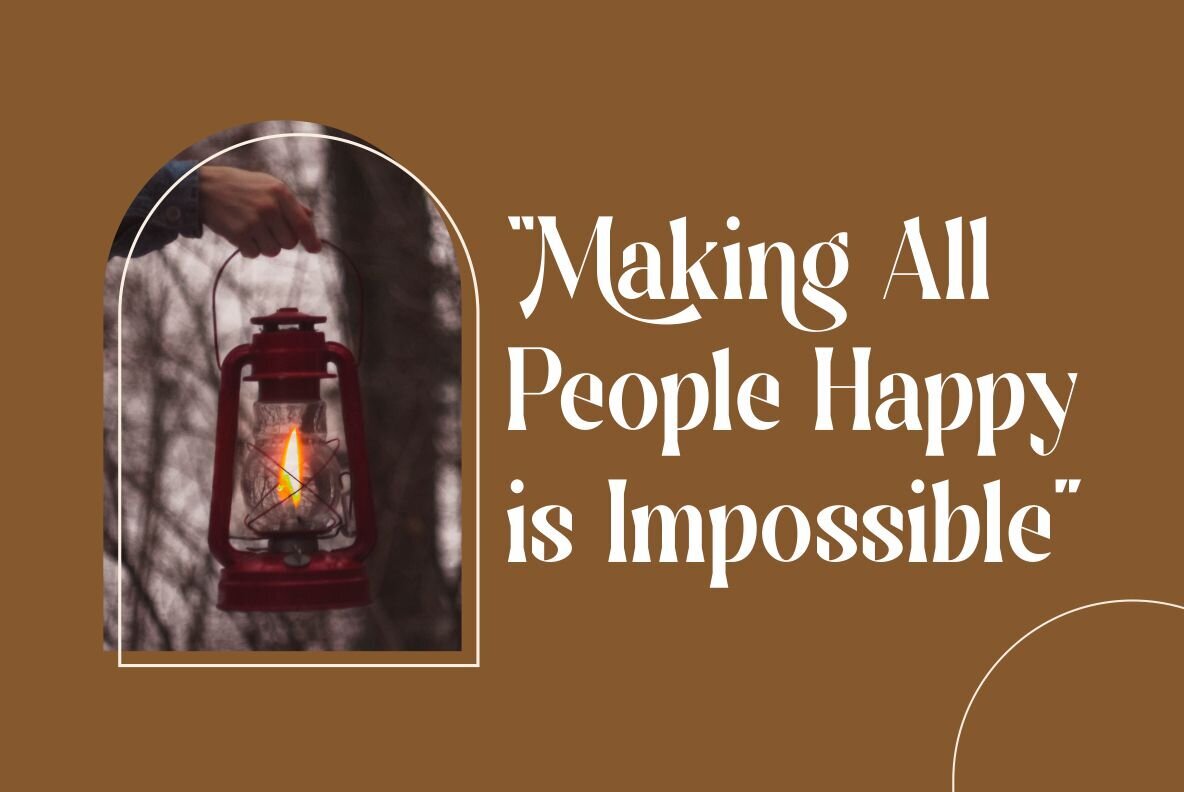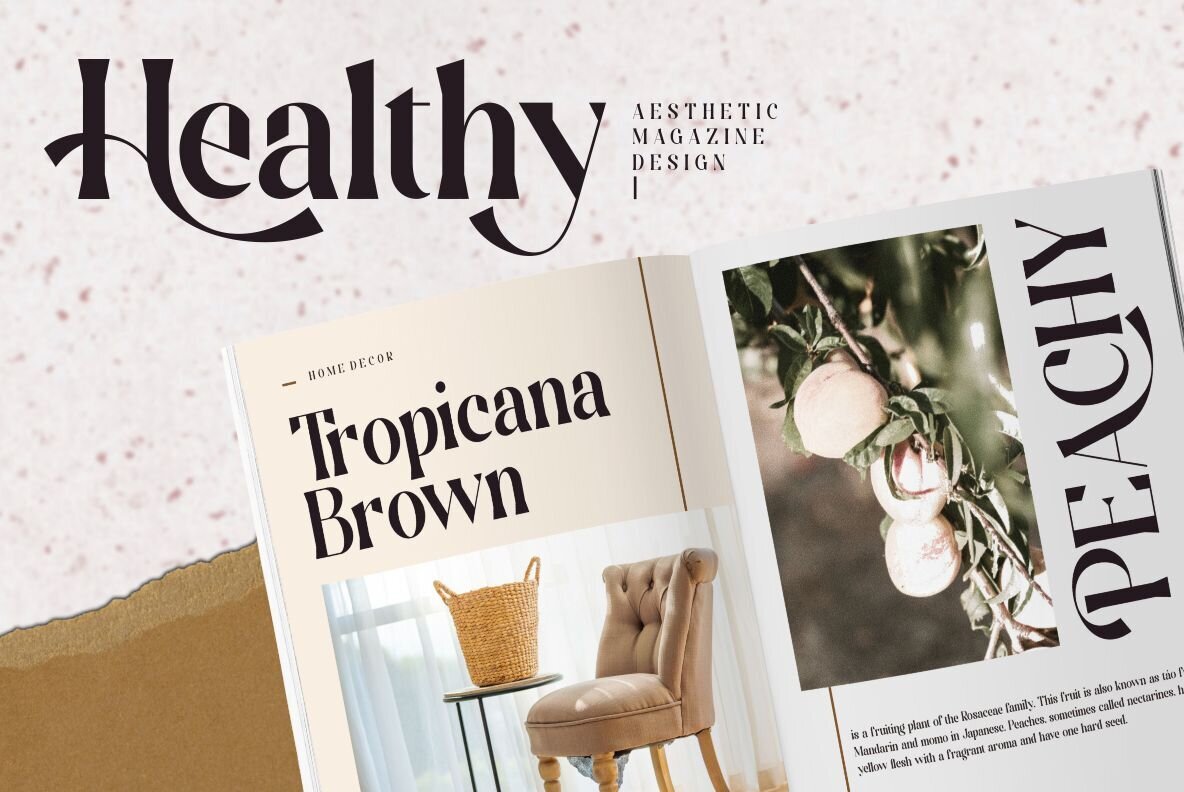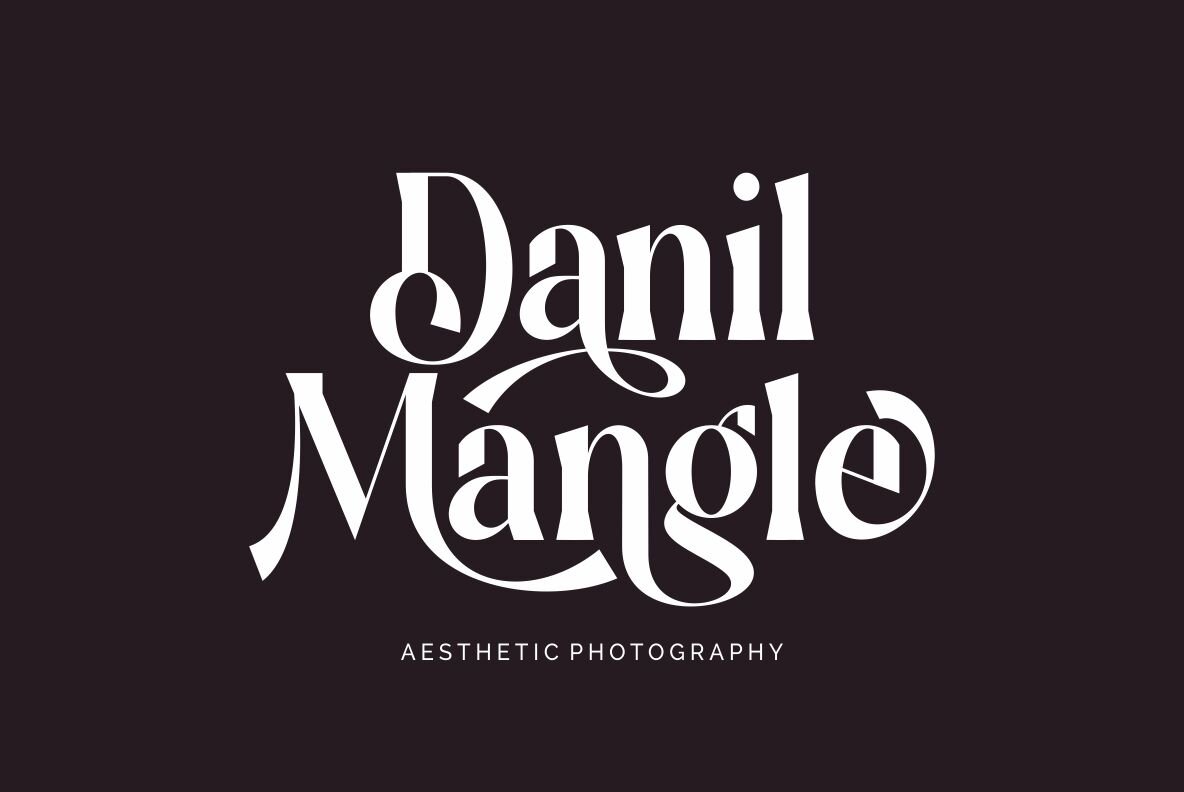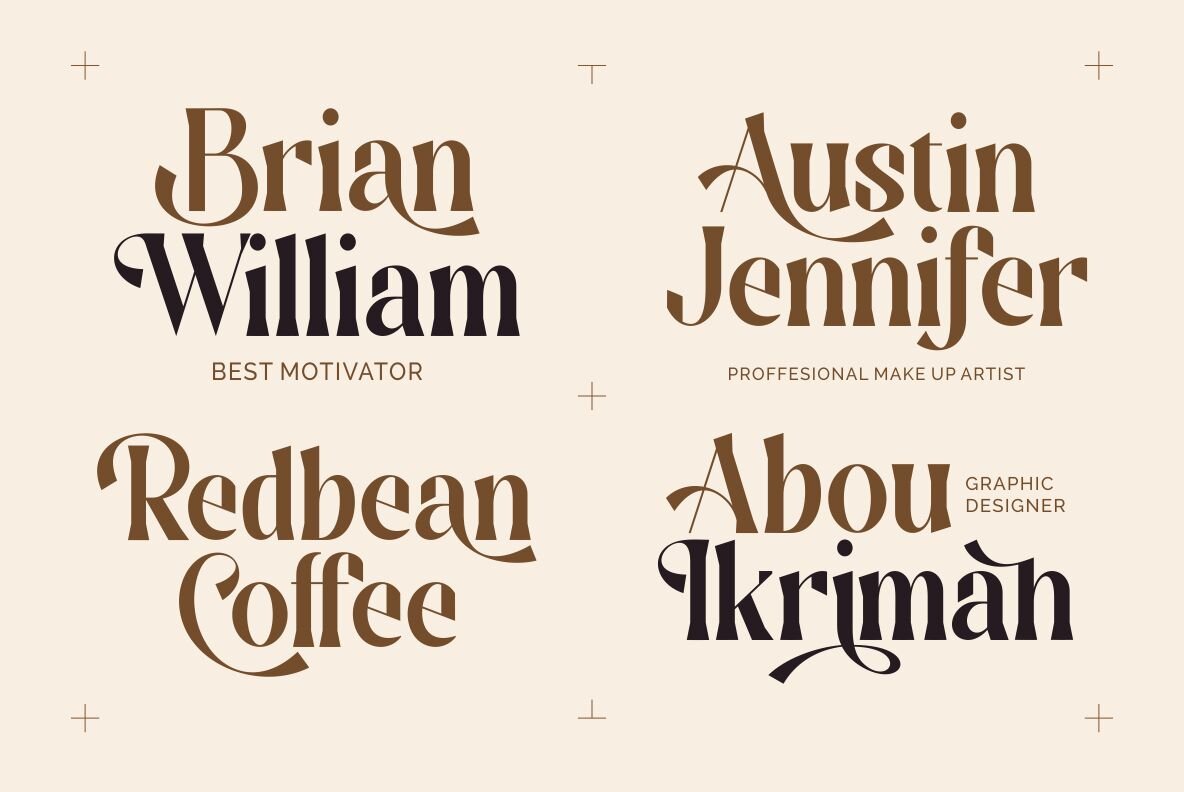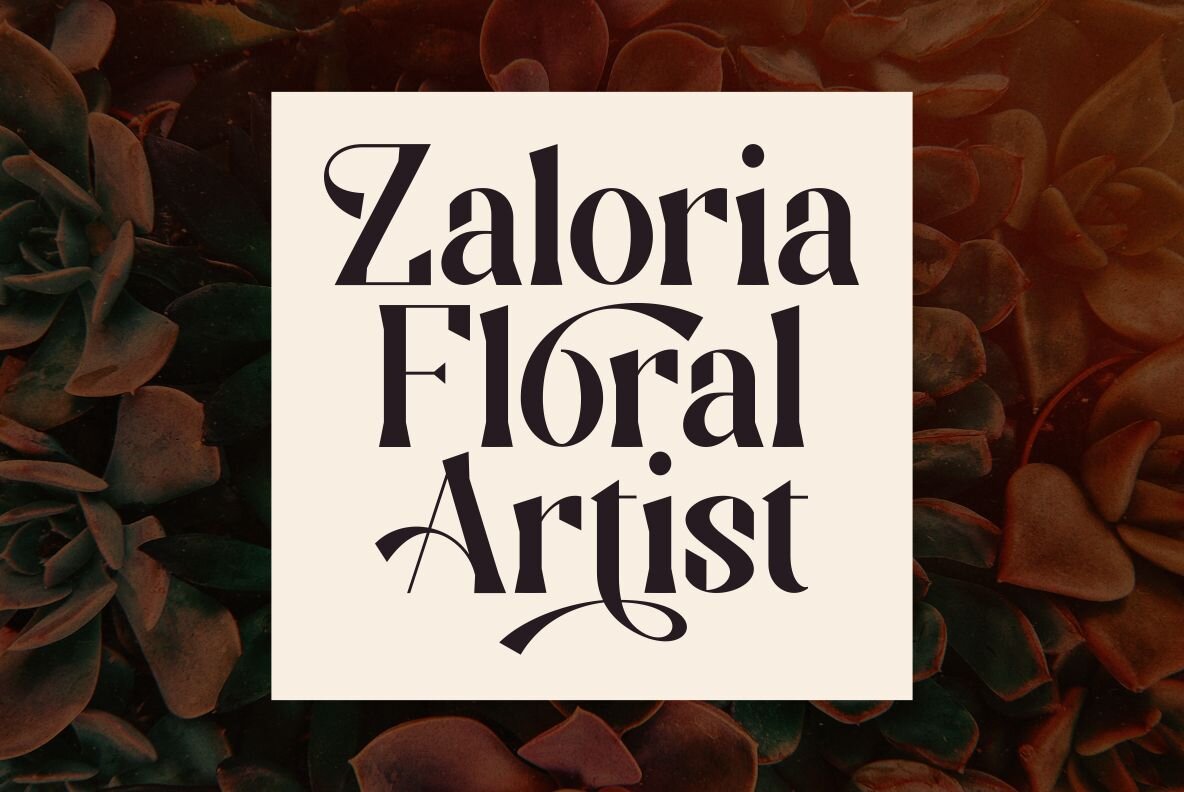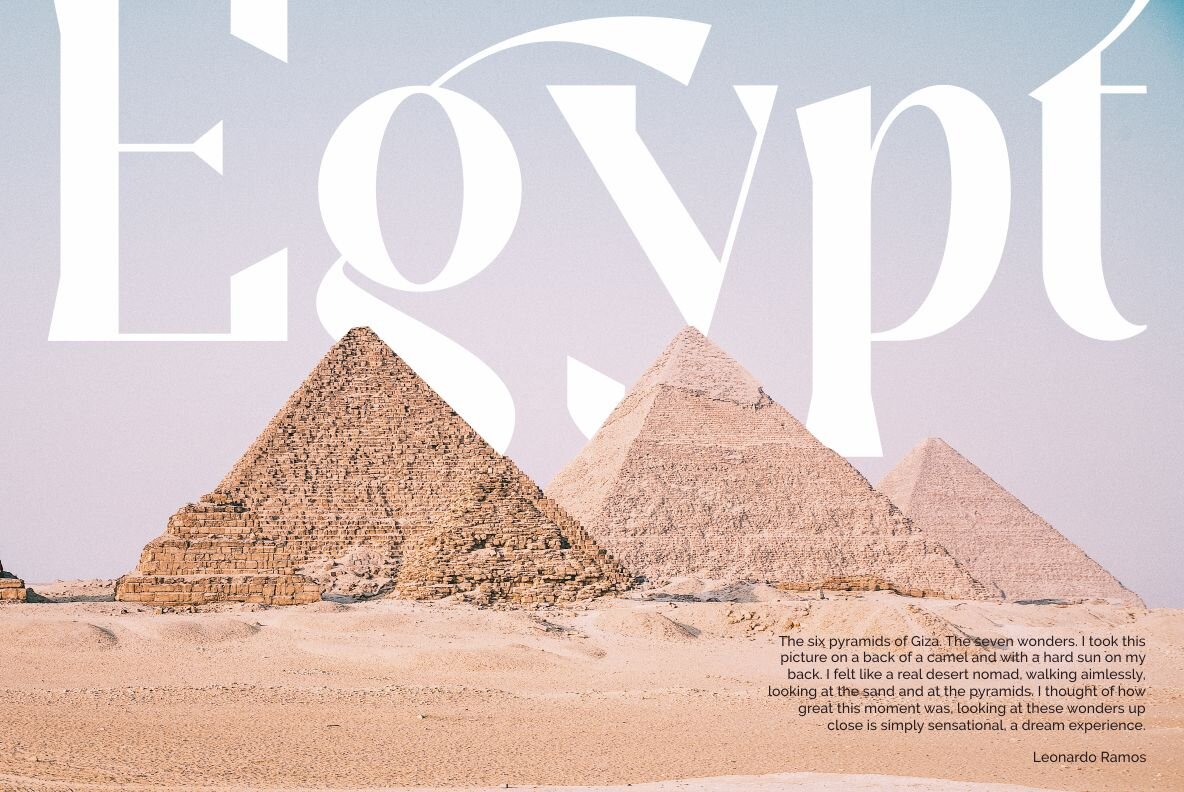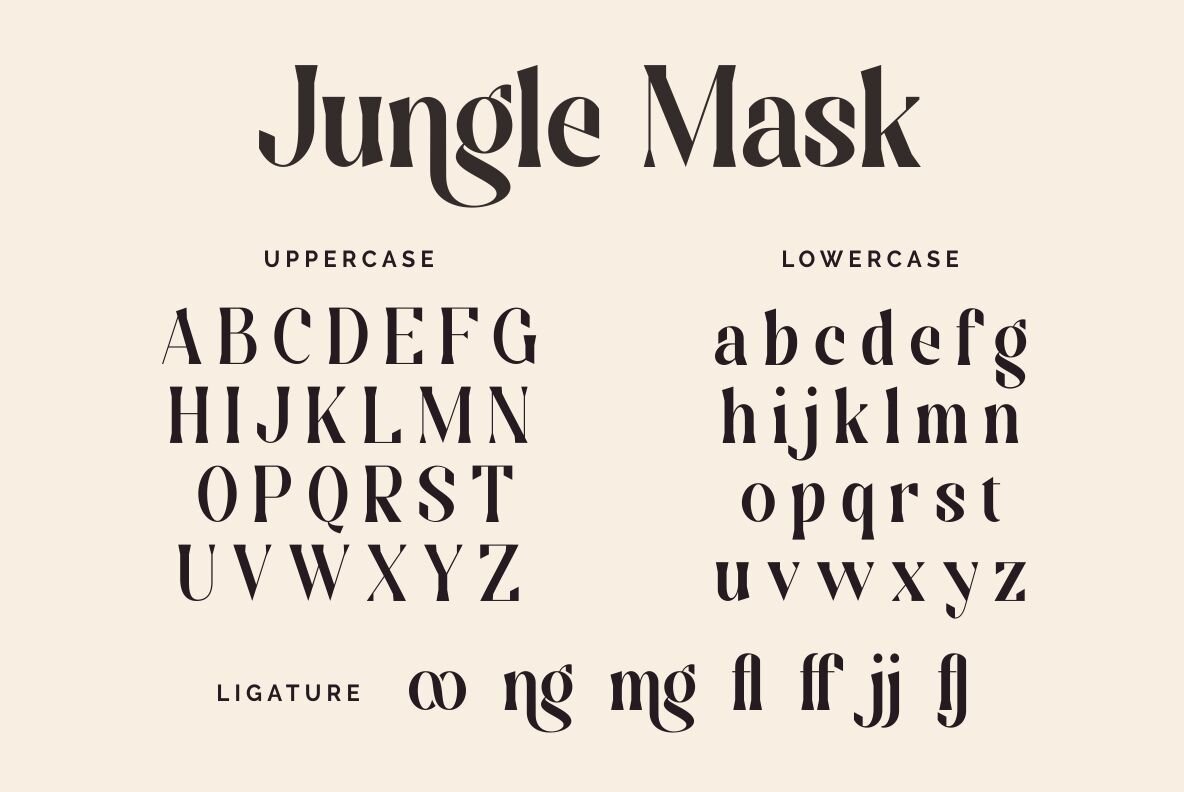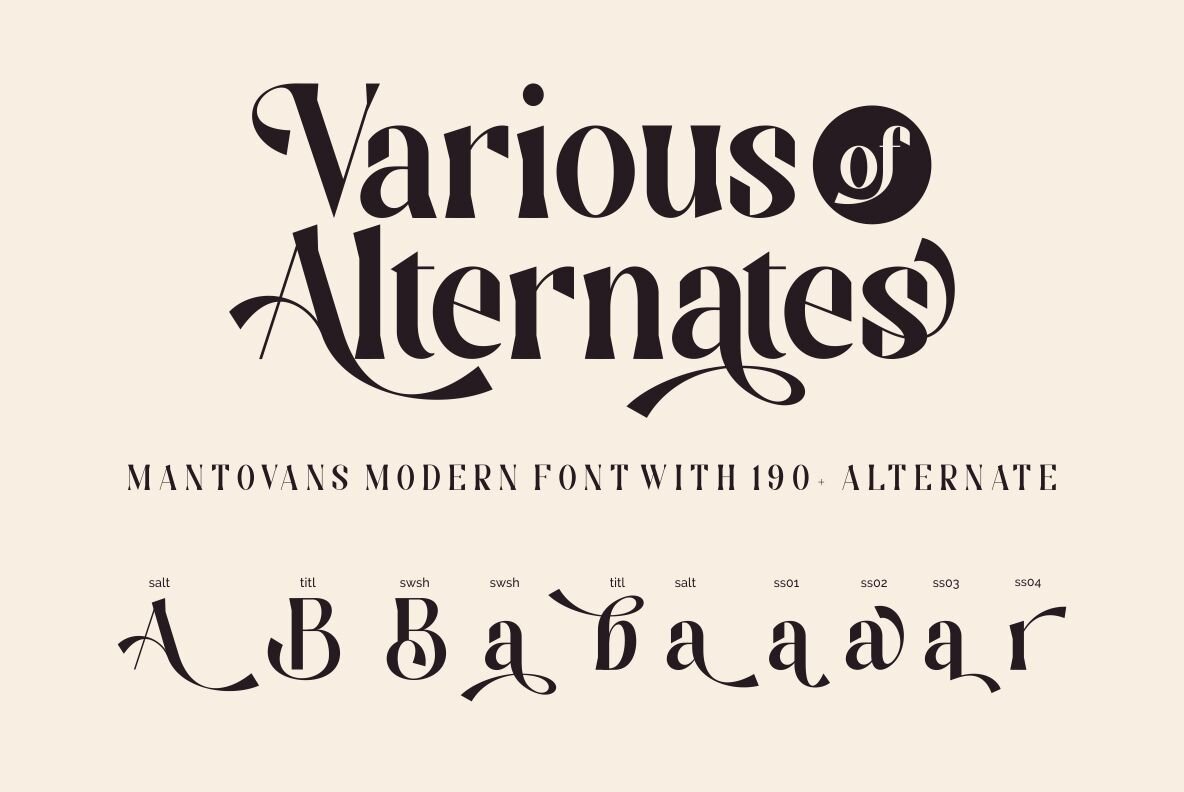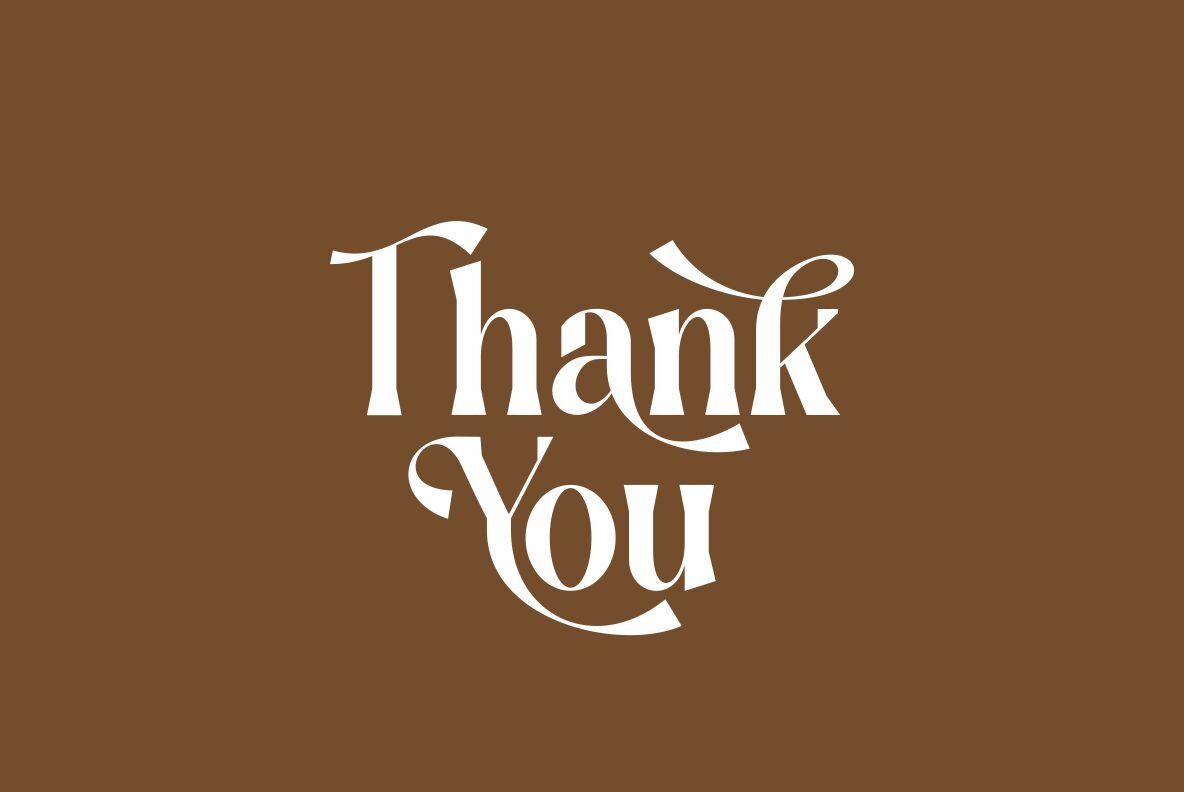
Jungle Mask: Premium Serif Typeface by Ergibi Studio
Jungle Mask by Ergibi Studio exudes a premium quality and luxurious feel, crafted with meticulous attention to detail. The abundance of alternate serif characters sets it apart, making it a distinctive choice compared to conventional sans fonts. Ideal for a variety of applications ranging from headlines and logos to posters and packaging.
• Unique Alternates – Offers a wide range of character variations for personalized designs.
• Versatile Applications – Suitable for T-shirts, coffee shops, restaurants, magazine headers, signs, or gift/postcards.
• Elegant Design – Perfect for weddings or any advertising purpose, where sophistication is key.